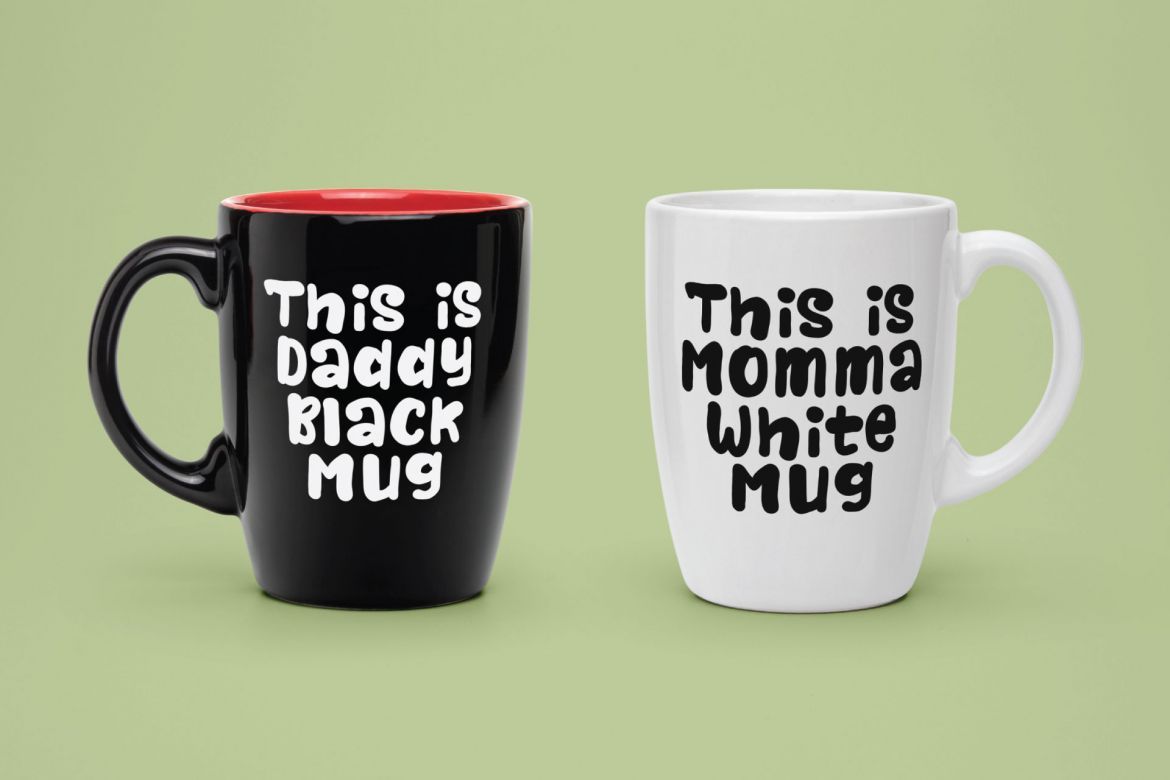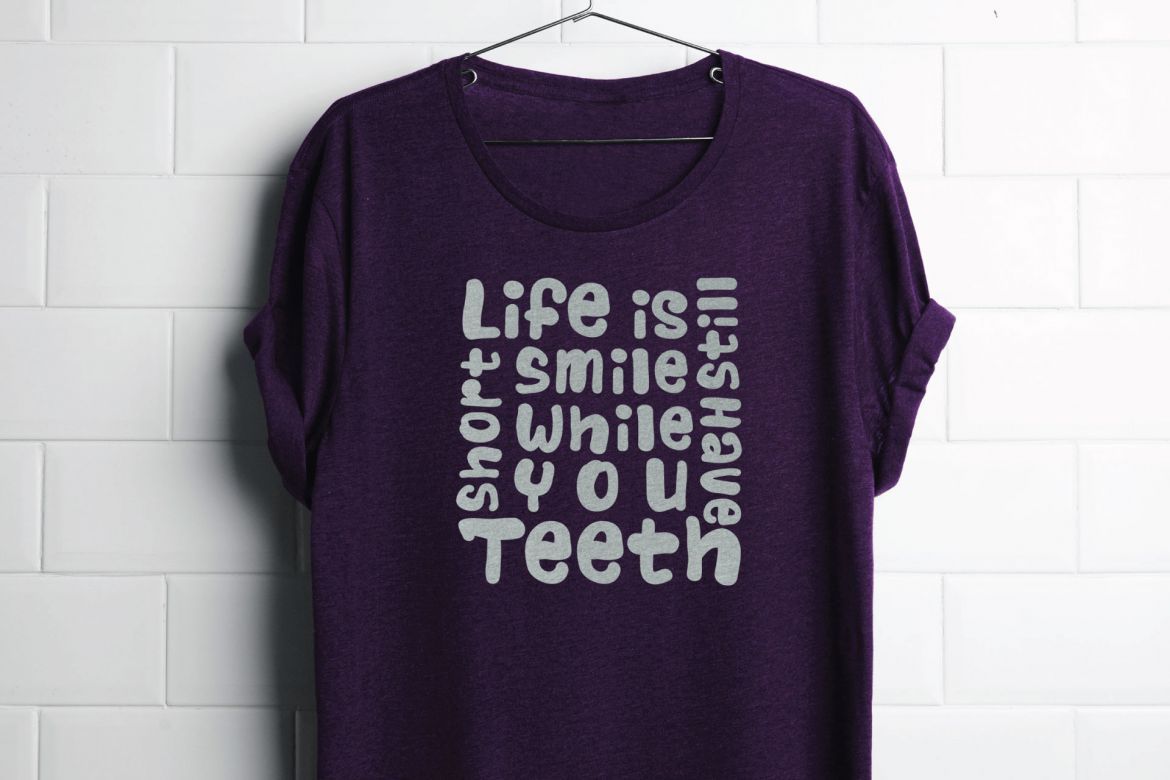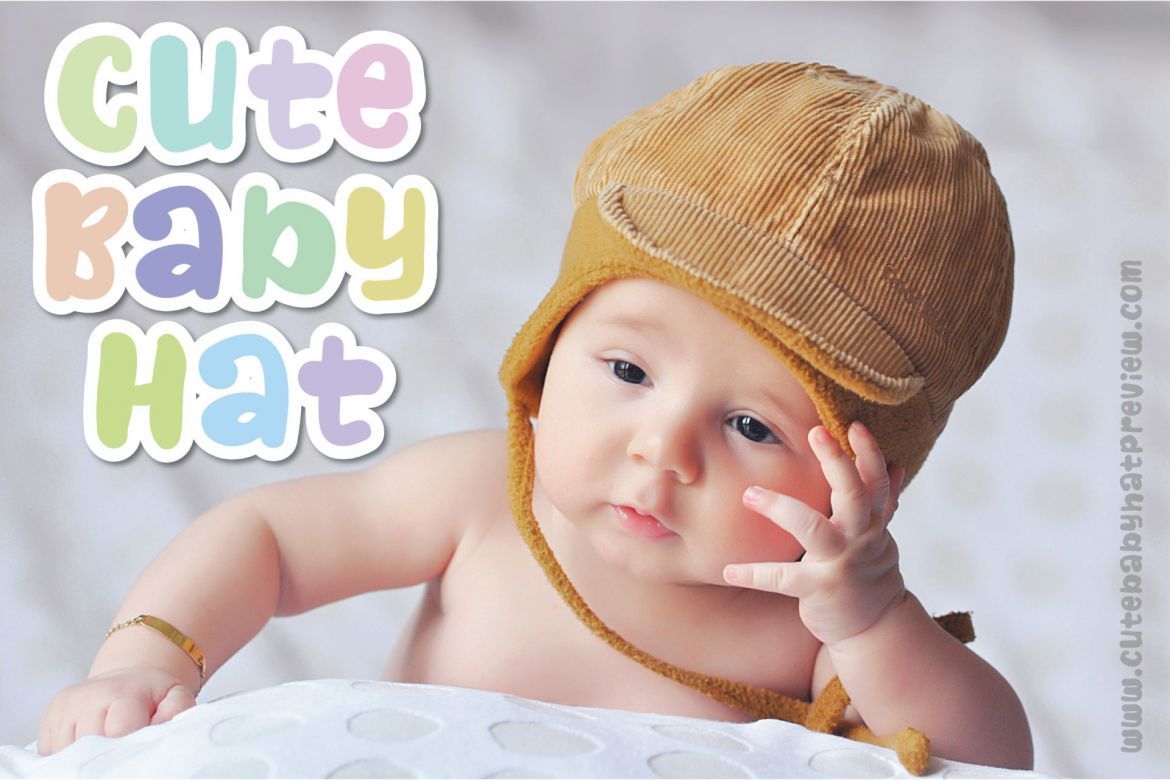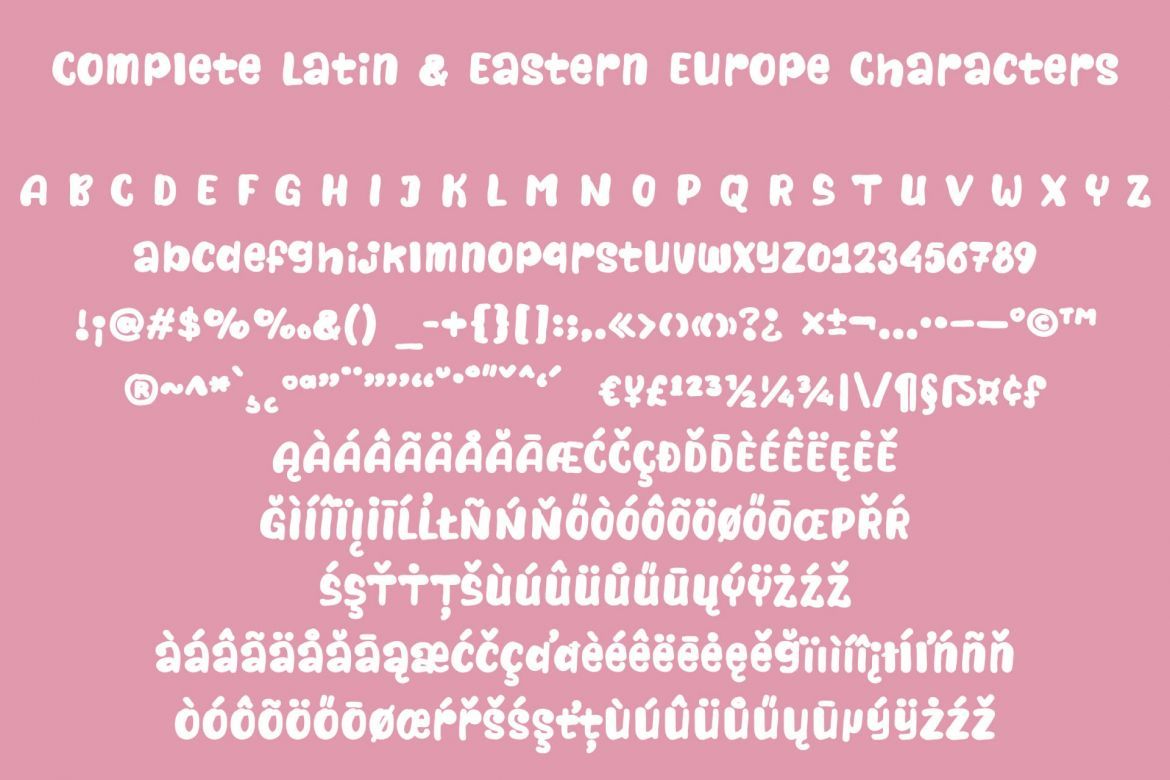
Naturalistic Playground - Cute Handwriting Font
Introducing a new cute whimsical handwritten font. All node was cleaned in fairly natural shape. This font will nice for logo, title, subtitle,T-shirt, Mug, etc.
• all node was cleaned in fairly natural shape
• have 295 glyphs, supported to all latin and eastern europe characters